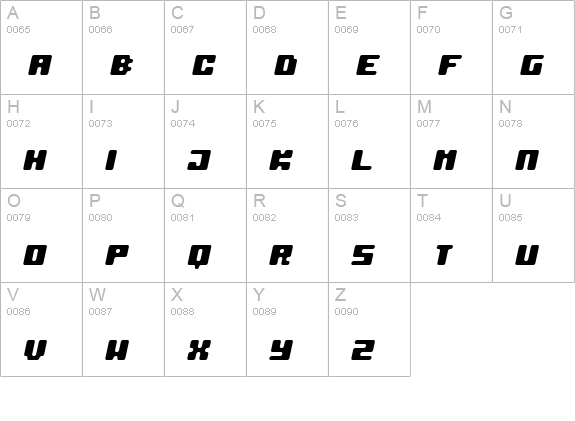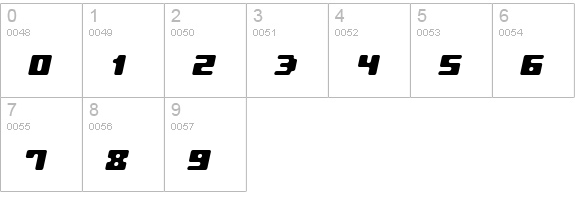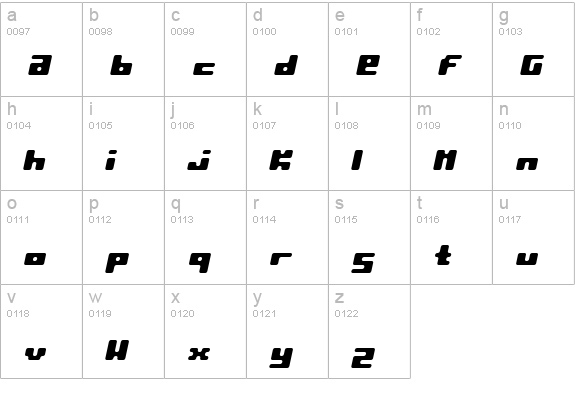
PormaskRemix Font Details
PormaskRemix is a stylish and contemporary font that exudes a sense of sophistication and creativity. Its sleek lines and elegant curves make it perfect for a wide range of design projects, from branding to packaging to social media graphics. With a modern twist on traditional typography, PormaskRemix stands out as a unique and versatile typeface that is sure to elevate any design it is used in. The best part? PormaskRemix is completely free to download at FontsMarket.com. This means that you can access this high-quality font without breaking the bank, making it an ideal choice for designers looking to add a touch of flair to their work without spending a fortune. Don't miss out on this opportunity to enhance your design projects with the effortlessly chic PormaskRemix font today!